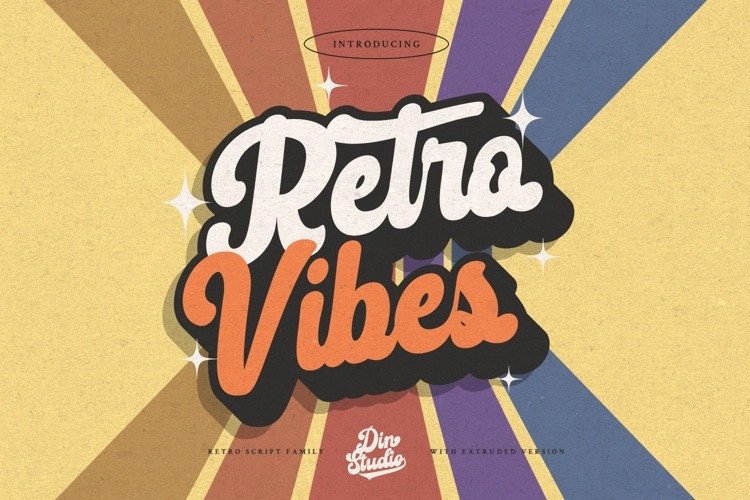
Retro Vibes Font
Retro Vibes Font is an old style, classic retro calligraphy font manufactured by Din Studio. It’s a fine-looking font, bought to life by a splendidly scratchy halftone gradient that aims to bring out a retro vibes. This font comes in regular and italic versions.